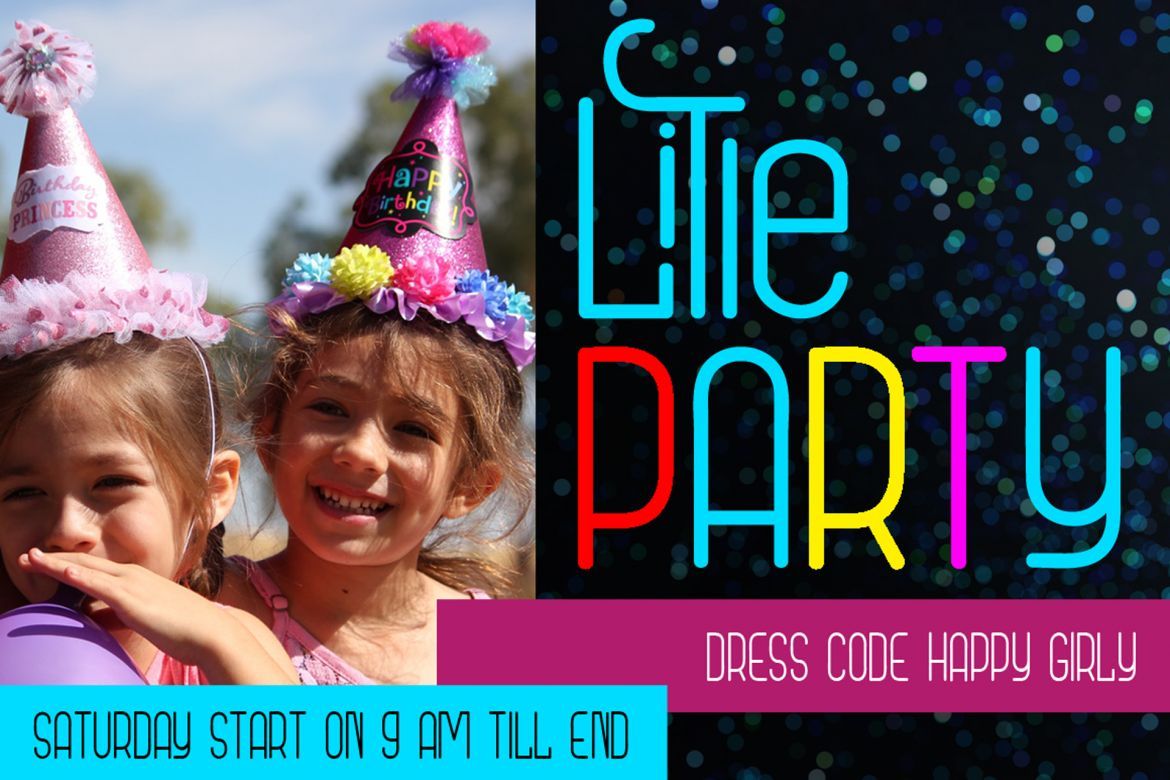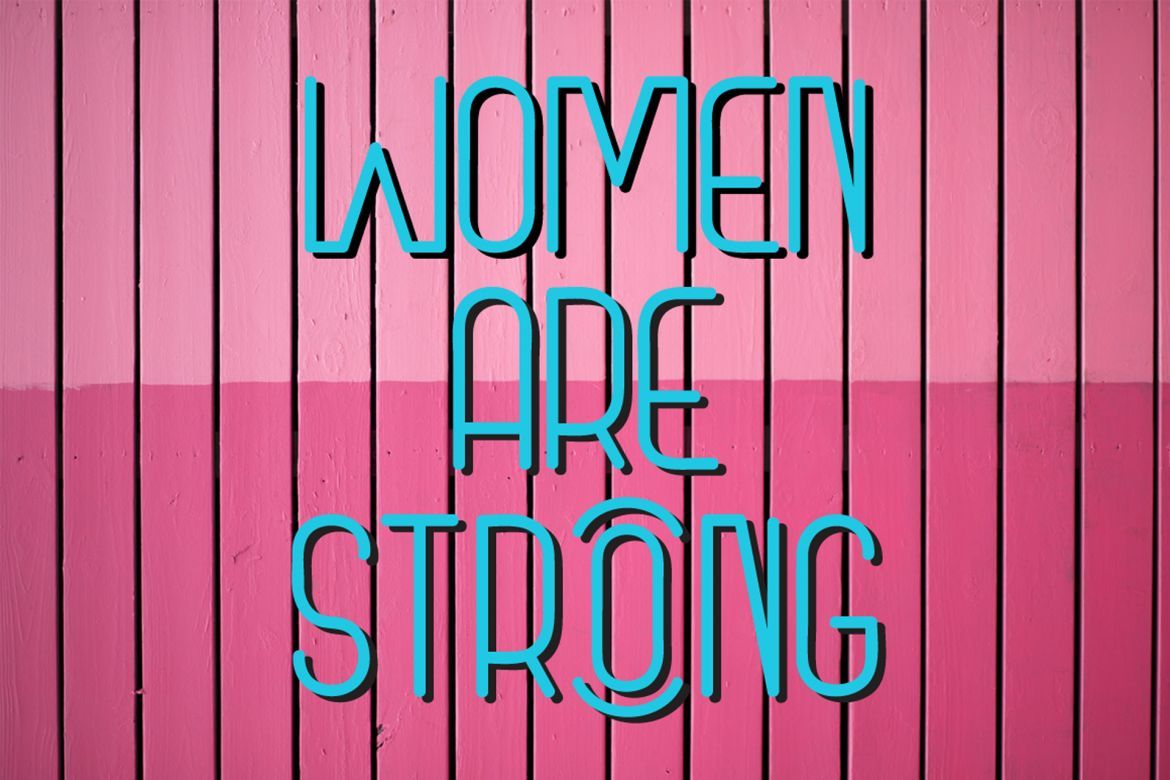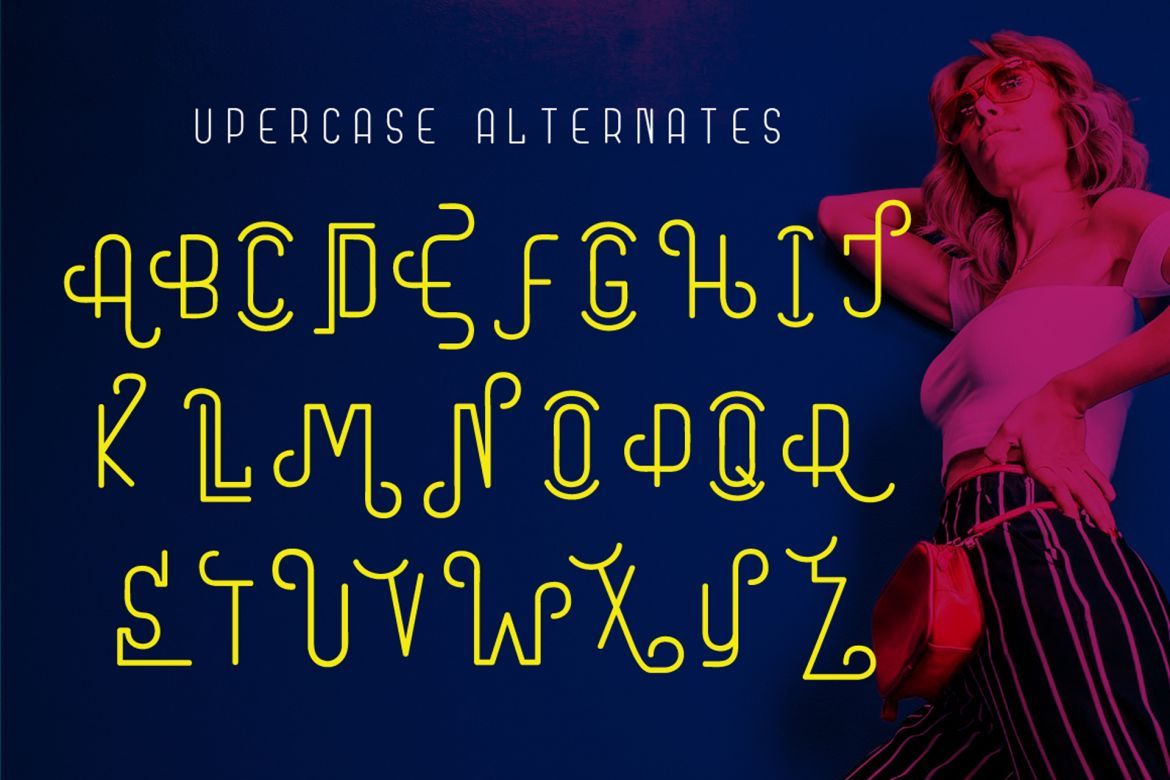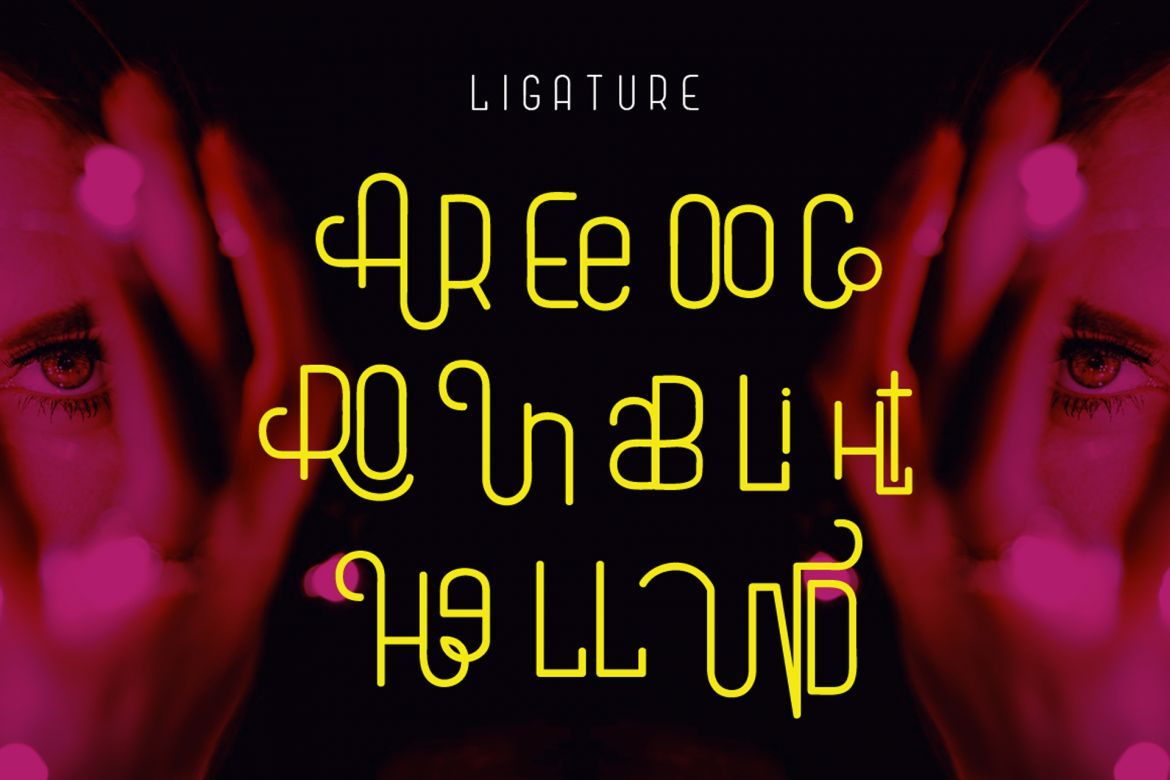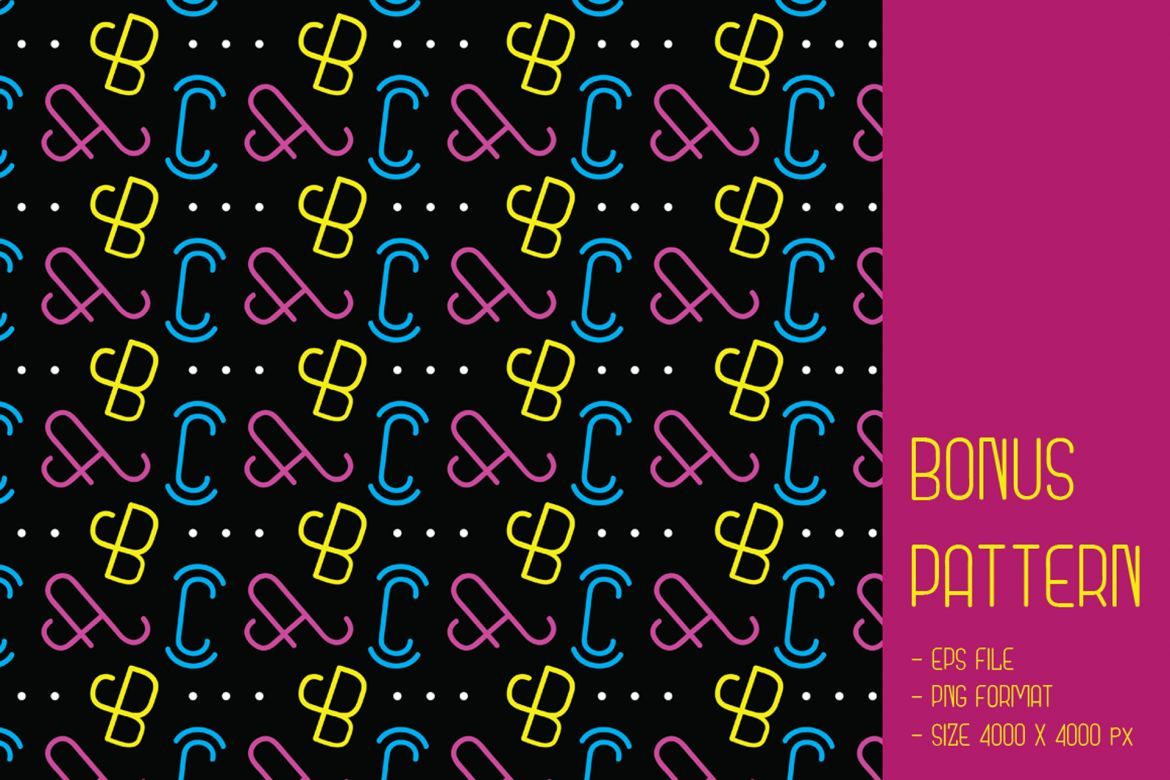
Round Light Font
Inspired by those good old disco days, Round Light is a fun and playful display font with an undeniable charm.
• and lowercase with rounded style can more explore the tagline with your product design.
• many variation uppercase with the monoline character can make your product design playful.